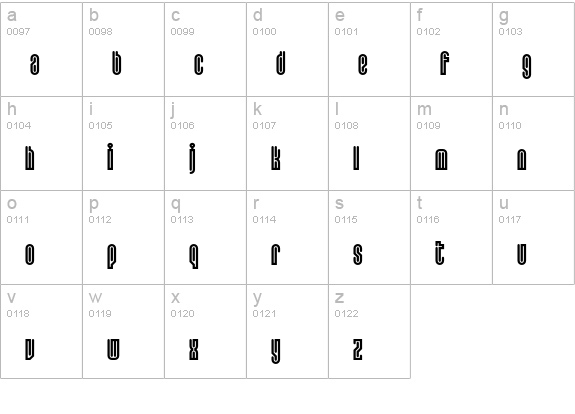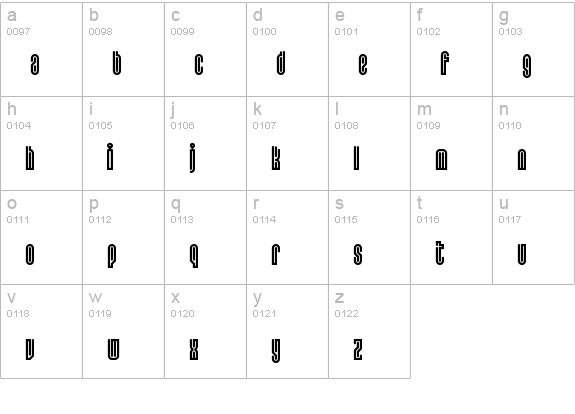
Lusta-EightySans is a sleek and modern font that exudes sophistication and elegance. Its clean lines and stylish curves make it perfect for a wide range of design projects, from branding to editorial design. This versatile typeface strikes the perfect balance between professionalism and creativity, making it a go-to choice for designers looking to make a bold statement. What sets Lusta-EightySans apart is its seamless blend of classic and contemporary design elements, resulting in a timeless font that never goes out of style. Whether you're working on a logo, website, poster, or any other design project, Lusta-EightySans will elevate your work to the next level. Best of all, Lusta-EightySans is available for free download at FontsMarket.com. This means you can start using this exceptional font in your projects right away, without any cost. Don't miss out on the opportunity to add Lusta-EightySans to your font collection and take your designs to new heights.